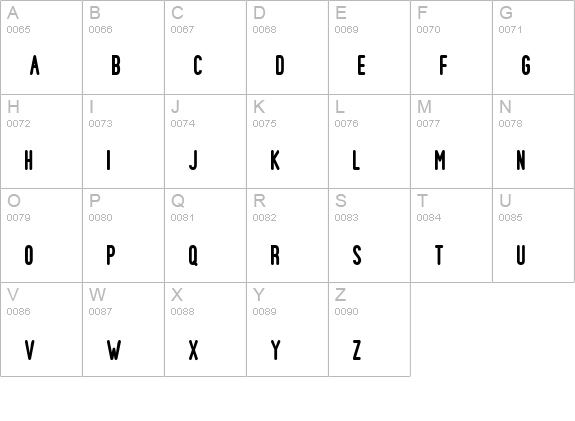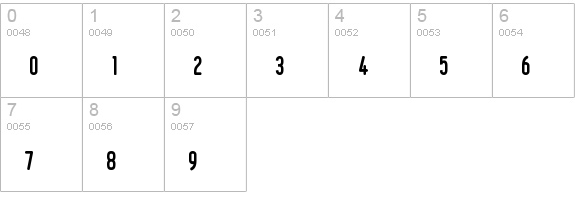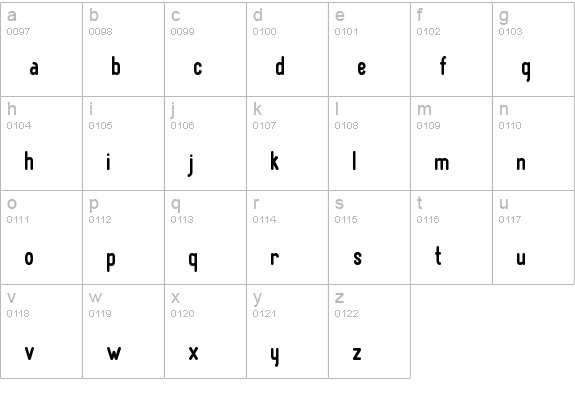
BN Pinky Bold Font Details
BN Pinky Bold is a strong, high-contrast variant in the BN typeface family \xE2\x80\x94 well suited to headlines, attention-grabbing titles, and strong calls-to-action.
Introducing BN Pinky Bold font, a stylish and eye-catching typeface that adds a touch of elegance to any design project. With its bold and modern look, BN Pinky Bold is perfect for headlines, posters, logos, and more. The striking and unique design of this font will make your text stand out and grab the attention of your audience. What's even better is that BN Pinky Bold font is available for free download at FontsMarket.com. That's right, you can easily access this amazing font at no cost and use it for both personal and commercial projects. Whether you're a designer, blogger, or business owner, BN Pinky Bold font is a versatile and must-have addition to your font collection. Don't miss out on the opportunity to enhance your designs with this beautiful and free font. Download BN Pinky Bold today and start creating stunning visuals that leave a lasting impression!